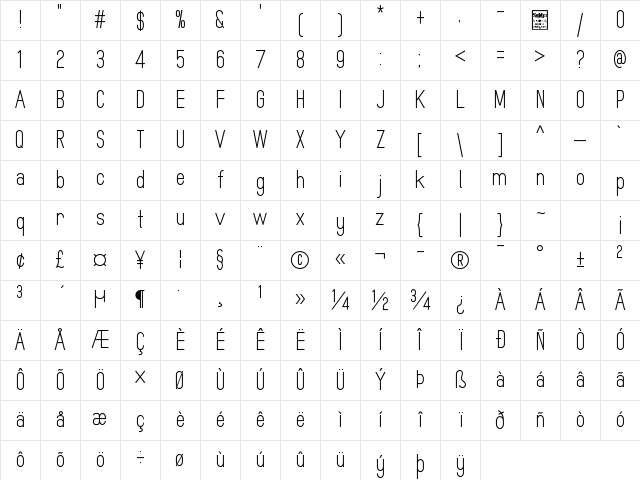
MindBlue Regular
Foundry: StudioTypo
Design Context for MindBlue
MindBlue is a composed and adaptable typeface that performs quietly and consistently across a wide range of design contexts.